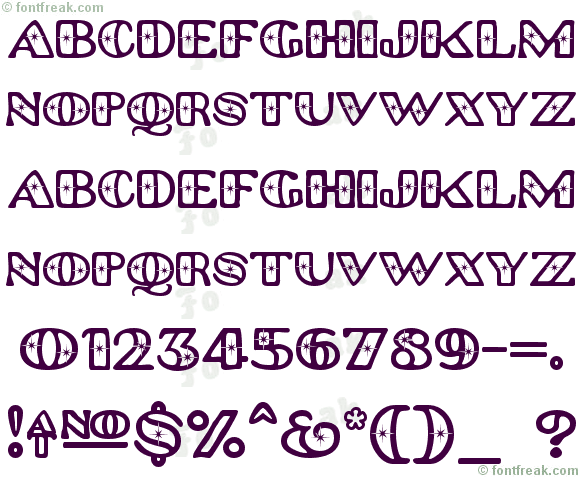
Platinum Hub Caps Polished
About Platinum Hub Caps Polished
Platinum Hub Caps Polished by Greywolf Webworks is a unique display font that captures attention through its distinctive design. This freeware font, released in 1999, features bold, rounded letterforms that exude a polished, metallic aesthetic, reminiscent of hubcaps. The stroke weight is consistent, lending a robust presence to each character, while the smooth curves create a sense of elegance. The spacing between letters is well-calibrated, ensuring clarity and legibility even at larger sizes. Decorative elements, such as the playful loops and rounded edges, enhance the font's character without overwhelming its overall sleekness.
This font is ideal for a variety of creative applications. It shines in contexts such as automotive-themed promotional materials, where its polished appearance can resonate with car enthusiasts. Additionally, it works well for retro-style posters, lending a nostalgic touch to events or products that evoke a sense of the past. Platinum Hub Caps Polished is also a great choice for signage in a diner or café, capturing the essence of a vintage aesthetic while remaining easy to read. Content creators looking to add a distinctive flair to their digital graphics or social media posts will find this font particularly appealing as well.
The target audience for Platinum Hub Caps Polished includes graphic designers, small business owners, and content creators seeking a standout typeface. Its free availability makes it accessible for various projects, whether personal or professional.